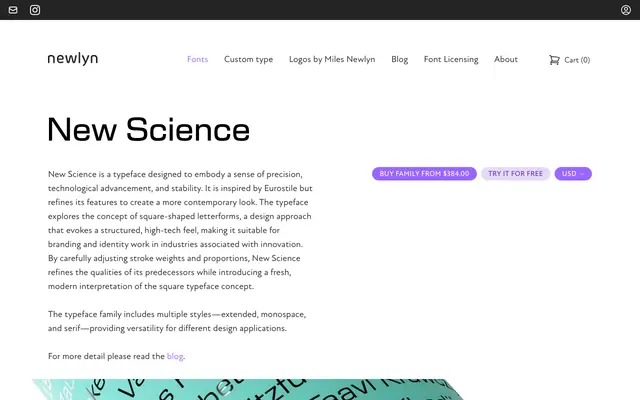
New Science
Newlyn · Miles Newlyn
A square-letterform geometric sans by Miles Newlyn, drawing on the Eurostile tradition and extended into monospace, serif and wide variants for technical and identity work.
Taking its cues from Eurostile, New Science refines the square-letterform approach with adjusted stroke weights and proportions to produce a more contemporary result. The family spans six weights from Thin to Bold across four subfamilies: the standard cut, an Extended width, a Monospace variant and a Serif, giving designers considerable range within a single system. Pitched at branding and identity work in technology, science and innovation-adjacent sectors.
Square-shaped letterforms derived from the Eurostile tradition place this firmly in the geometric sans category, with the structured, modular forms characteristic of that lineage refined for contemporary use.